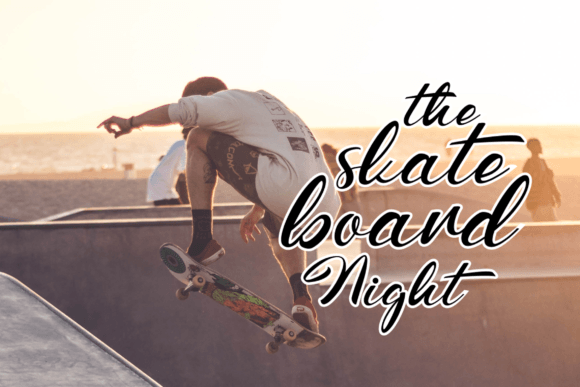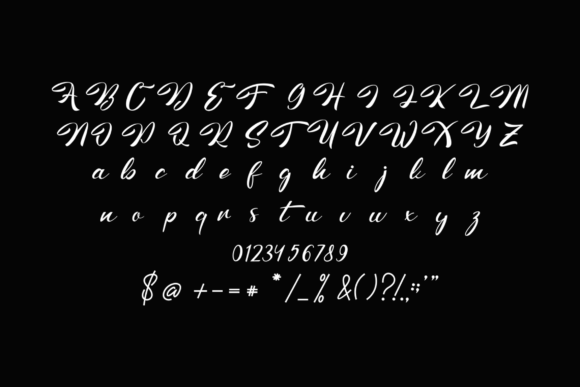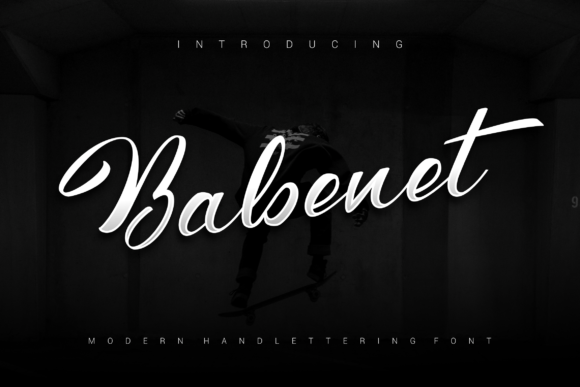
Babenet Font: The Ultimate Bold and Authentic Handwritten Font for Designers and Crafters
In the world of typography, a font can make or break a design project. When it comes to creating a bold and authentic look, designers and crafters are always on the lookout for a font that can deliver. This is where Babenet Font comes in – a stunning handwritten font that is suitable for a wide range of branding projects, from logos and t-shirt printing to exports and more.
What Makes Babenet Font Stand Out?
Babenet Font is a bold and authentic handwritten font that is designed to make a statement. Its unique and elegant style makes it perfect for designers and crafters who want to add a personal touch to their projects. Whether you’re working on a logo, t-shirt design, or any other branding project, Babenet Font is sure to impress.
One of the key features that sets Babenet Font apart is its versatility. It looks outstanding in a wide range of contexts, from digital designs to print materials. The font’s bold and authentic style makes it perfect for creating eye-catching headlines, titles, and logos that are sure to grab attention.
Why Designers and Crafters Love Babenet Font
Designers and crafters love Babenet Font for many reasons. Here are just a few:
- Unique and Authentic Style: Babenet Font has a unique and authentic handwritten style that sets it apart from other fonts. Its bold and elegant look makes it perfect for creating stunning designs that stand out.
- Versatile: Babenet Font is incredibly versatile and can be used in a wide range of contexts, from digital designs to print materials.
- Easy to Read: Despite its bold style, Babenet Font is easy to read, making it perfect for body text and other applications where readability is key.
- High-Quality: Babenet Font is a high-quality font that is designed to deliver exceptional results. Its crisp and clean lines make it perfect for creating stunning designs.
How to Use Babenet Font in Your Design Projects
Using Babenet Font in your design projects is easy. Here are just a few ideas to get you started:
- Logos: Babenet Font is perfect for creating bold and eye-catching logos that make a statement.
- T-Shirt Printing: The font’s bold and authentic style makes it perfect for t-shirt printing and other apparel.
- Digital Designs: Babenet Font can be used in a wide range of digital designs, from social media graphics to website headers.
- Print Materials: The font’s high-quality design makes it perfect for print materials, such as brochures, flyers, and posters.
Tips for Getting the Most Out of Babenet Font
Here are a few tips for getting the most out of Babenet Font:
- Experiment with Different Sizes: Babenet Font looks great in a wide range of sizes, from small body text to large headlines.
- Pair it with Other Fonts: Babenet Font can be paired with other fonts to create stunning contrast and visual interest.
- Use it in Combination with Images: The font’s bold and authentic style makes it perfect for use in combination with images and graphics.
Babenet Font is a bold and authentic handwritten font that is perfect for designers and crafters who want to add a personal touch to their projects. Its unique and elegant style makes it suitable for a wide range of branding projects, from logos and t-shirt printing to exports and more. With its versatility, high-quality design, and ease of use, Babenet Font is sure to become a favorite among designers and crafters.